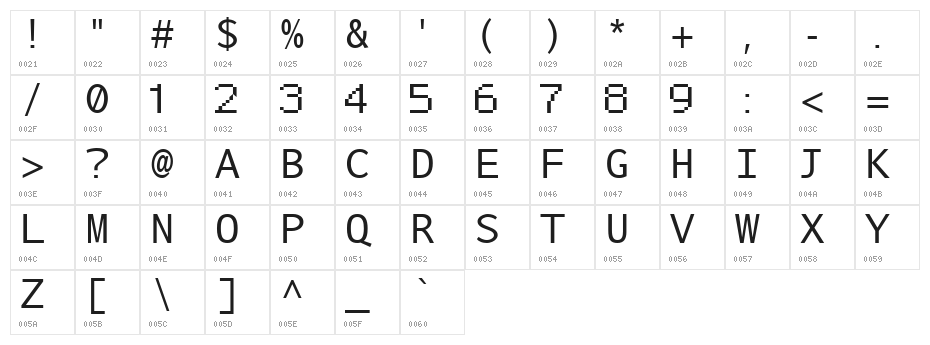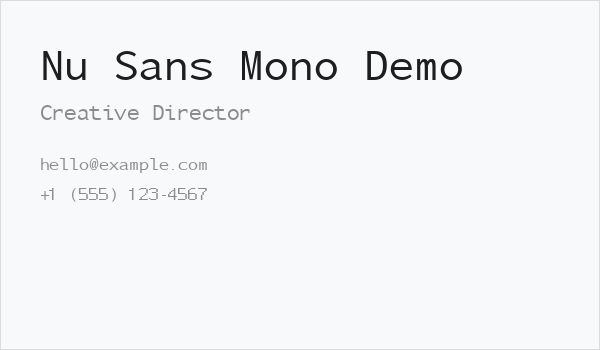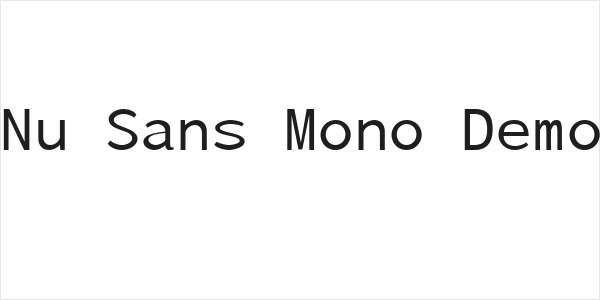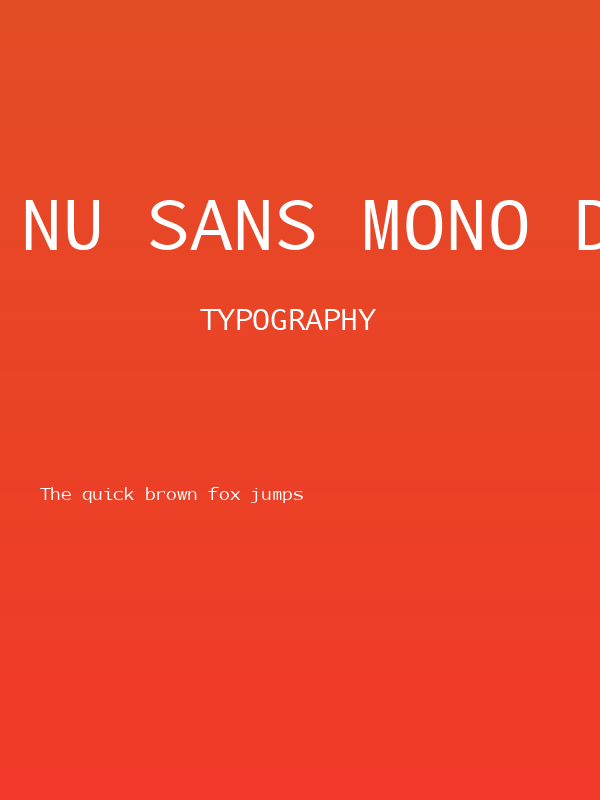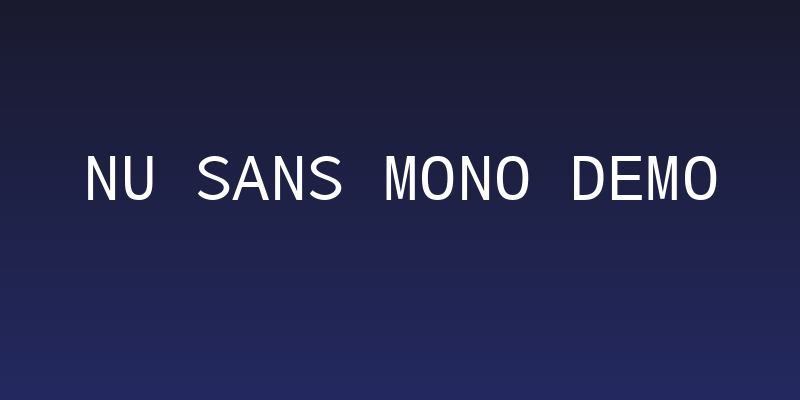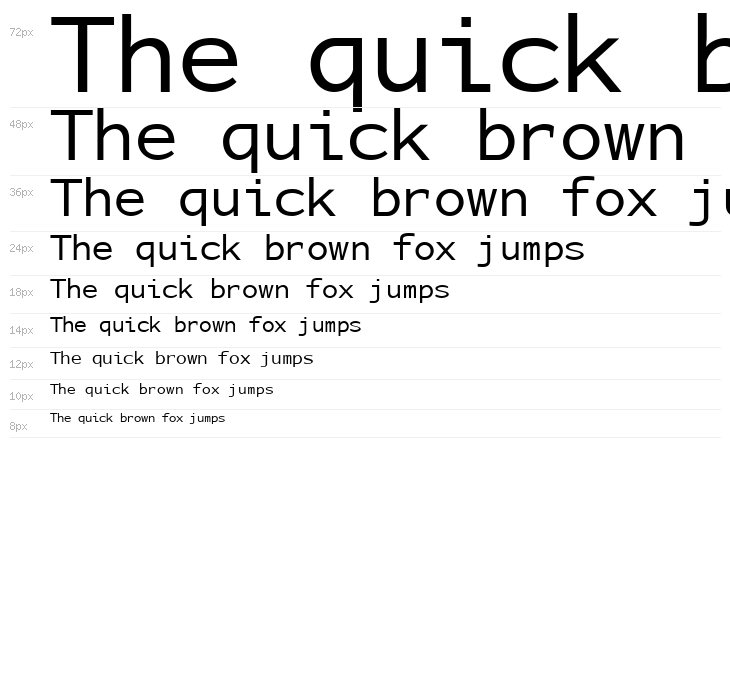
Nu Sans Mono Demo Font
Nu Sans Mono Demo Description
This monospaced font features clean, geometric lines with a modern aesthetic. Each character is uniformly spaced, providing a consistent and orderly appearance. The uppercase letters are bold and straightforward, while the lowercase letters maintain a similar structure with slight variations in height and width. The numerals are clear and easily distinguishable, making them ideal for technical or coding applications. Special characters are well-defined, ensuring readability and functionality. Overall, the font's simplicity and precision make it suitable for a variety of digital and print projects.
| Use Case | Coding, Technical documentation, Minimalist design |
| Proposed Projects | Ideal for coding, technical documentation, and minimalist design projects. |